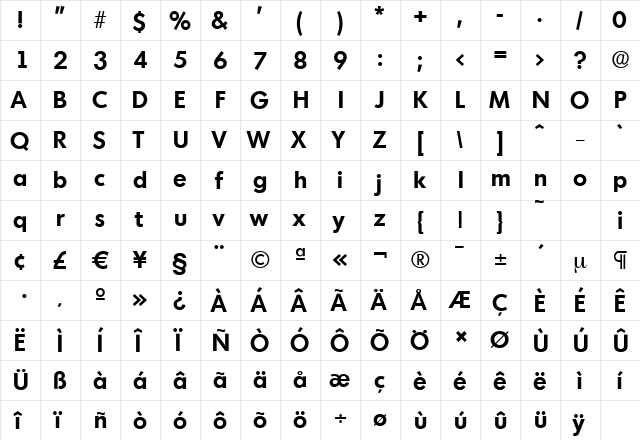
MontrealSerial Bold
Design Context for MontrealSerial Typeface
MontrealSerial takes a measured approach to typography — its balanced proportions and neutral character make it a reliable workhorse for both digital and print work. The heavy weight commands attention and anchors typographic hierarchies.